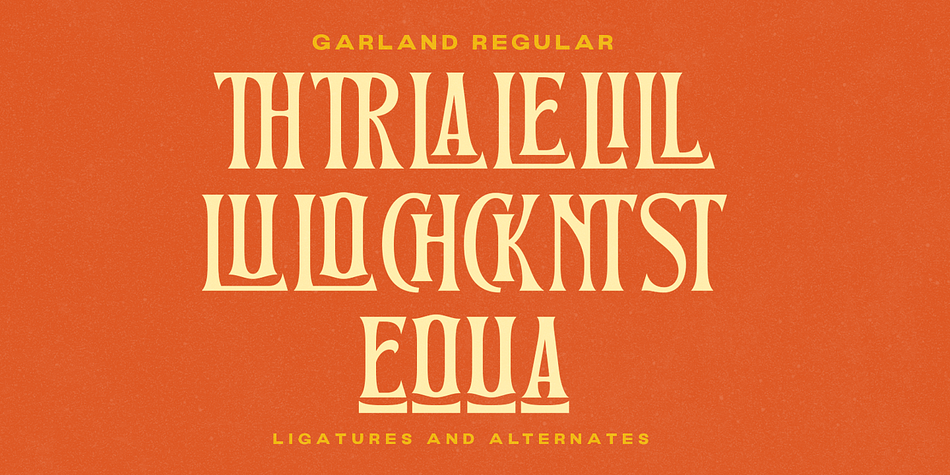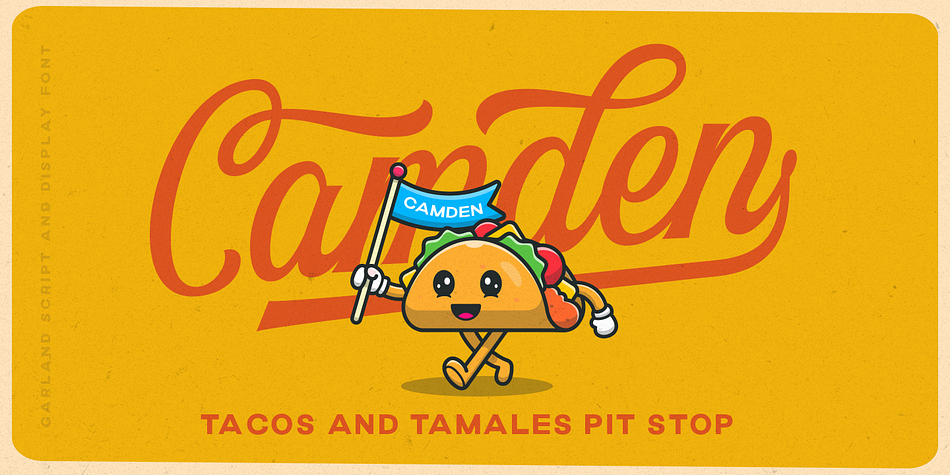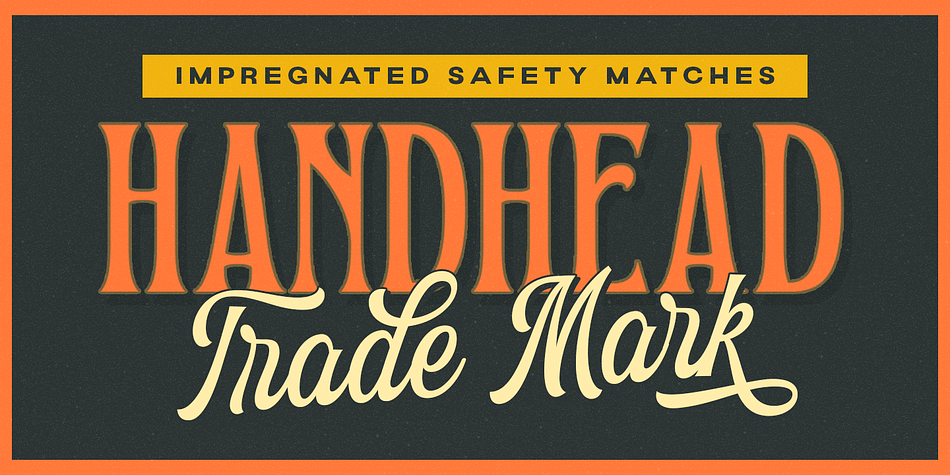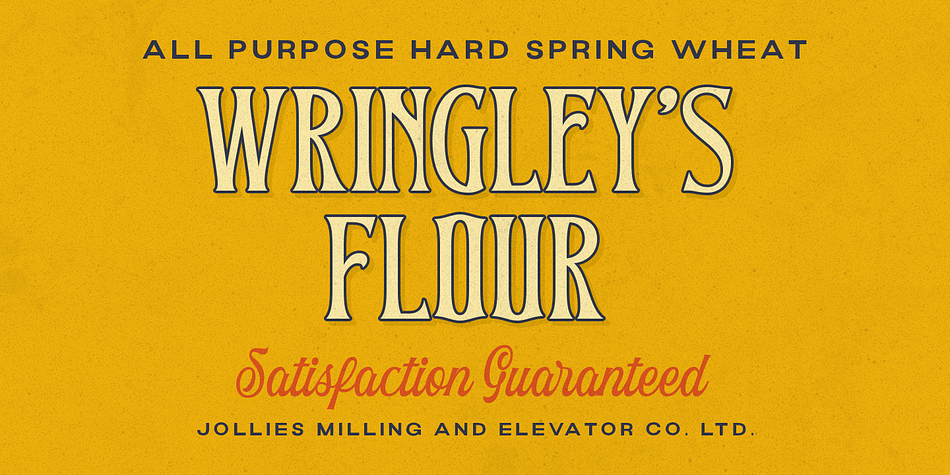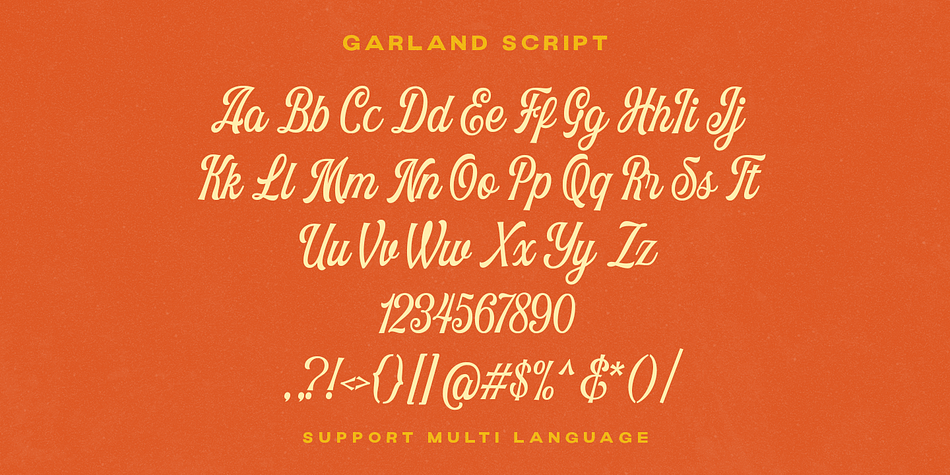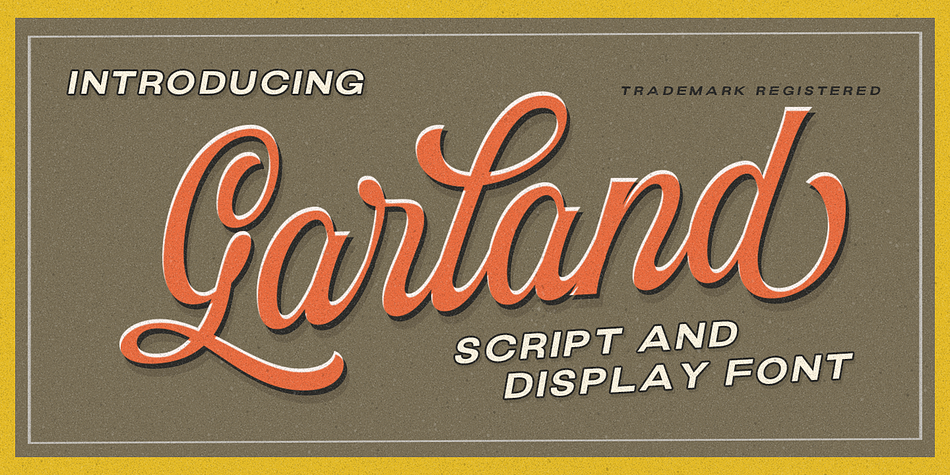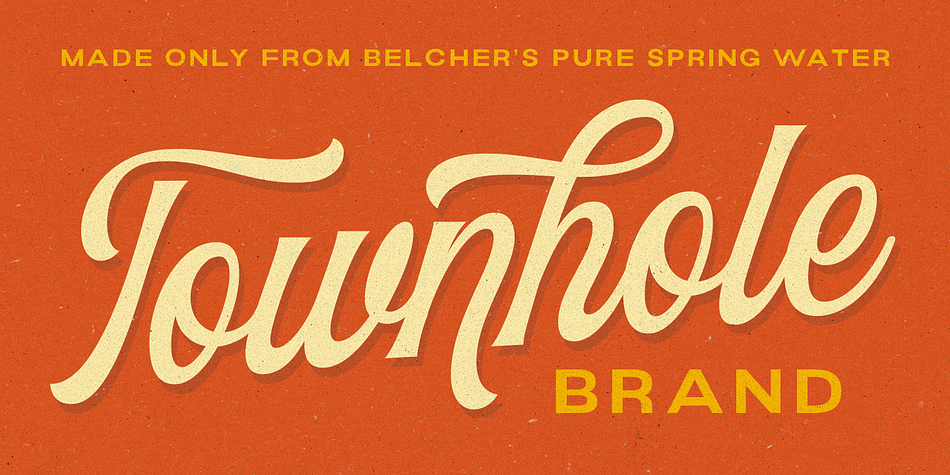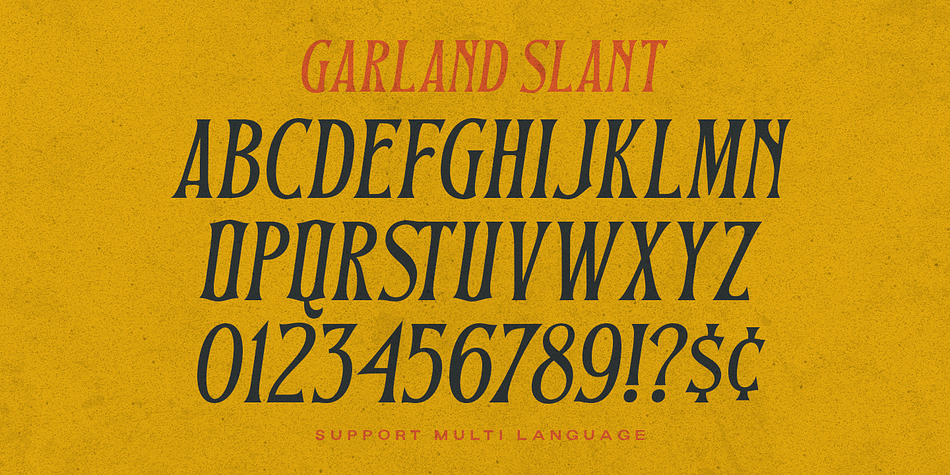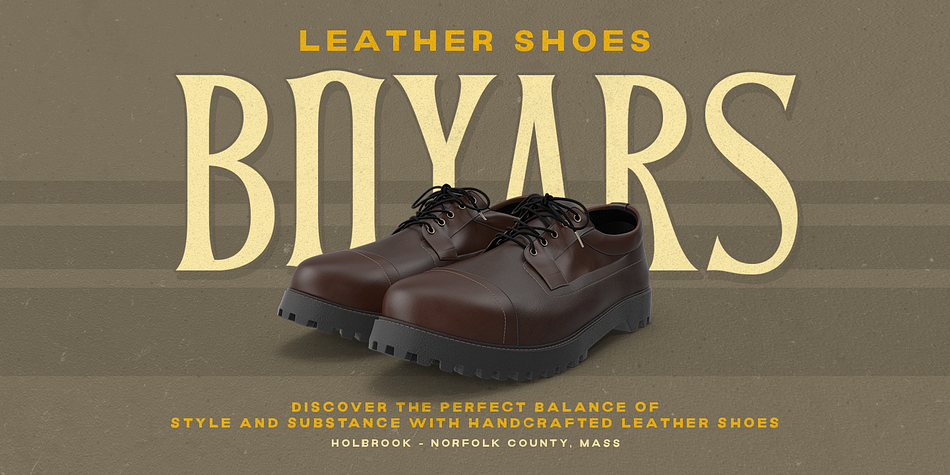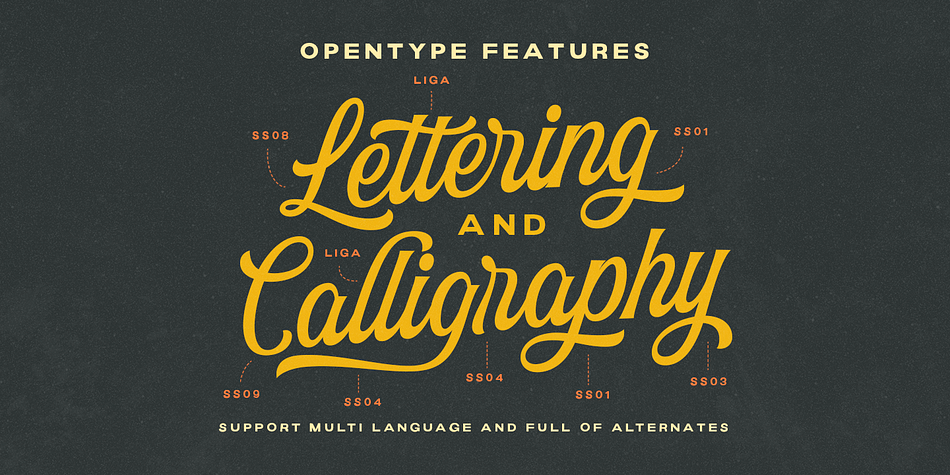
GARLAND
Designed by Hendry Juanda, Garland is a brush script, display serif and retro font family. This typeface has three styles and was published by Letterhend Studio.
Garland is a font duo with classic display font with Vintage Script. You can playaround to fit the form using between typeface. This font perfectly made to be applied especially in logo, and the other various formal forms such as invitations, labels, logos, magazines, books, greeting / wedding cards, packaging, fashion, make up, stationery, novels, labels or any type of advertising purpose.